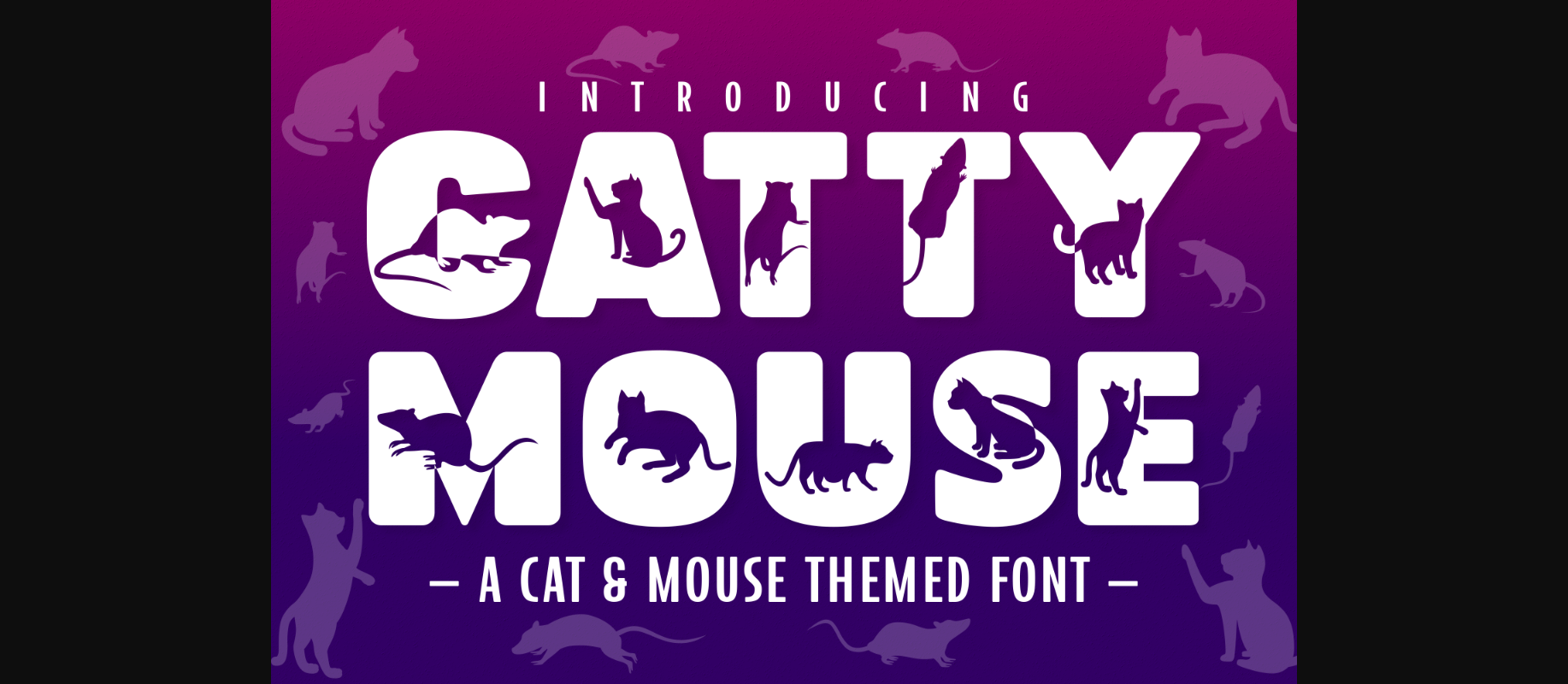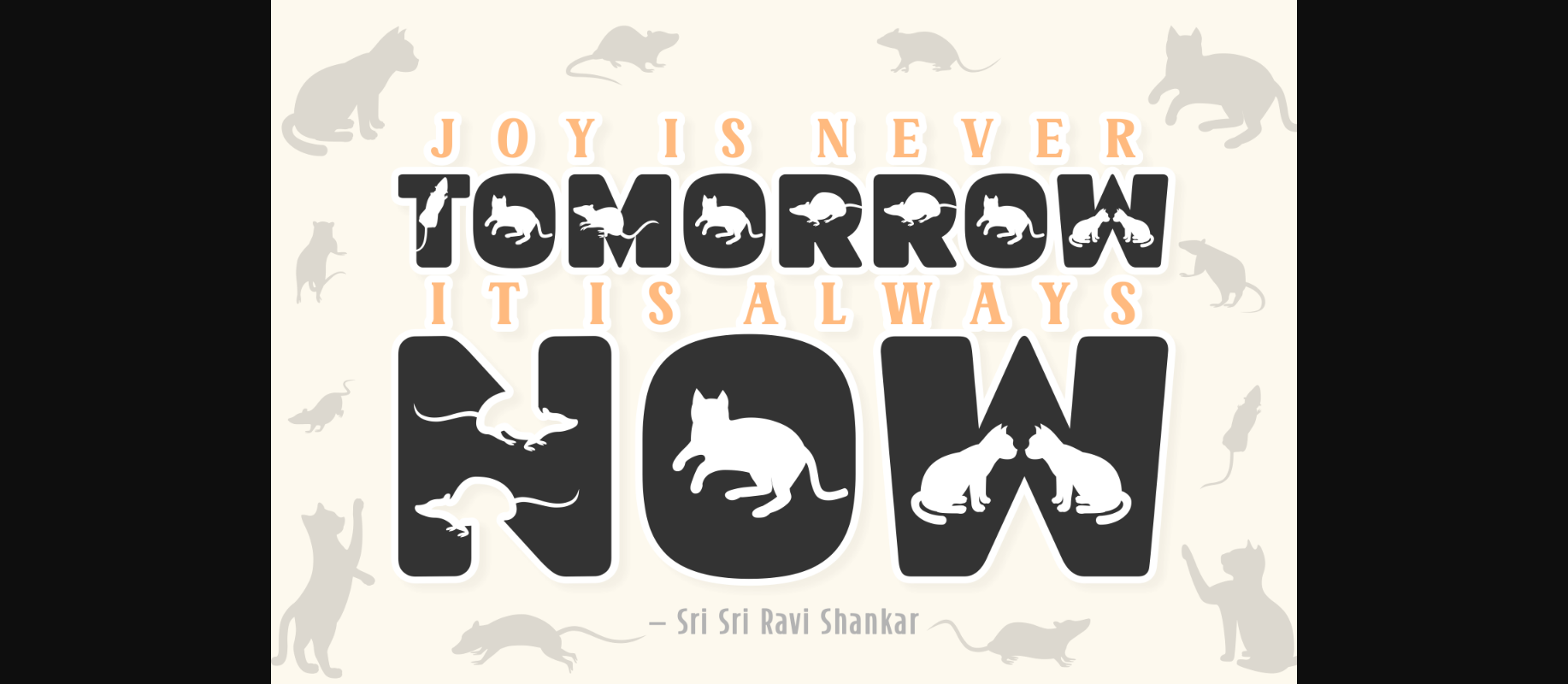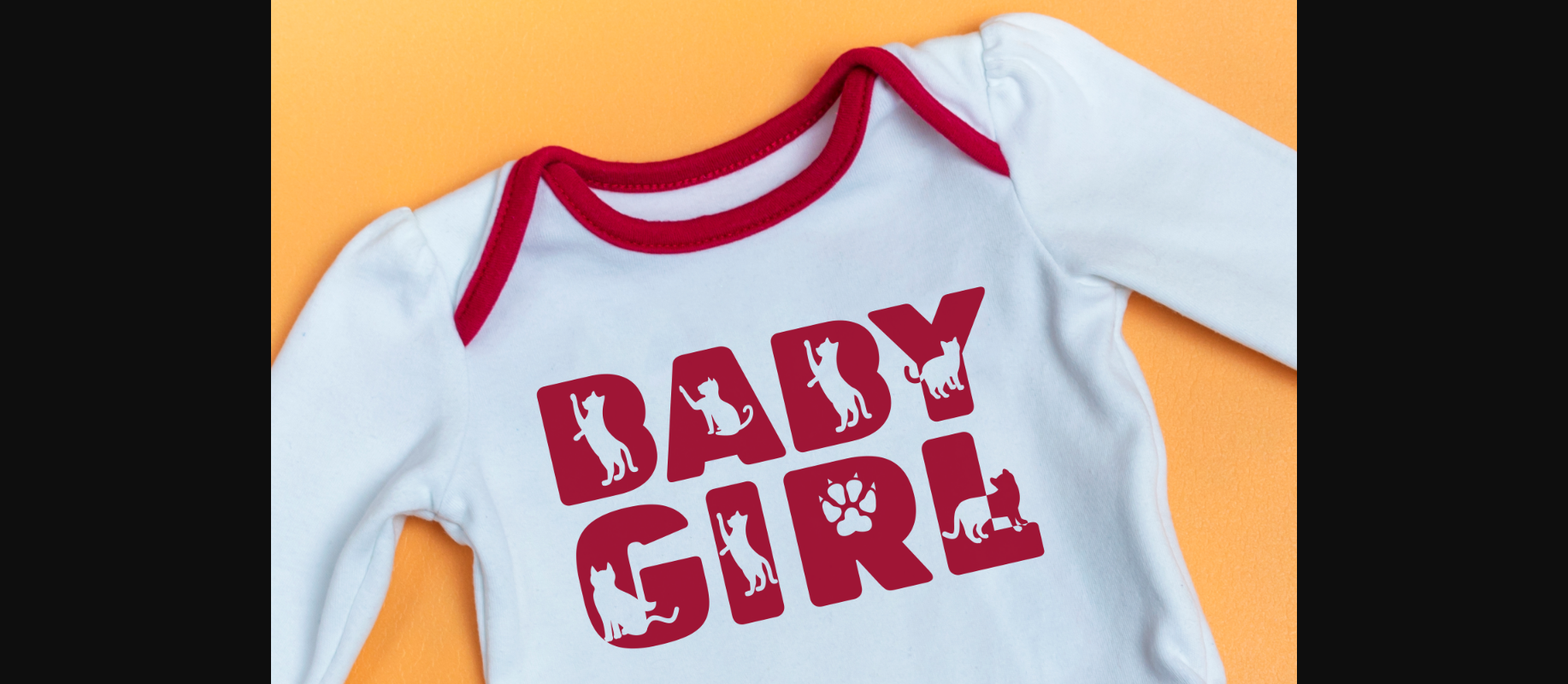
About Catty Mouse Font
Catty Mouse is a cool, unique, and attractive decorative font. It embodies fun and authenticity is the perfect choice for kids’ activities or school projects and clothing designs. This font is PUA encoded which means you can access all of the amazing glyphs and ligatures with ease!